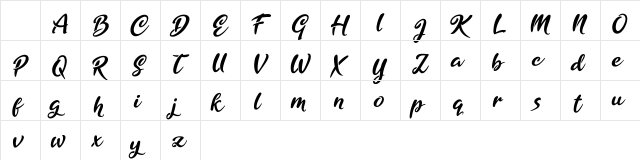
Complete Golden Ranger glyph index. Displaying only characters natively supported by Golden Ranger font.
Golden Ranger is a composed and adaptable typeface that performs quietly and consistently across a wide range of design contexts.